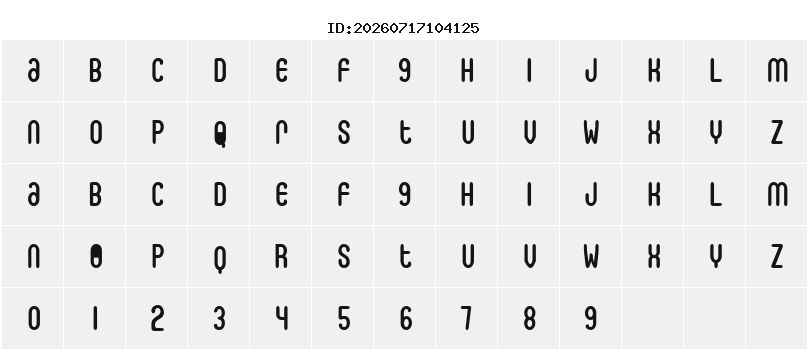
Book Of Joe Preview
• Font Name: Book Of Joe
• Full Font Name: Book Of Joe
About Book Of Joe.ttf
Book Of Joe.ttf is a modern, elegant sans-serif font designed for ultimate readability and visual harmony. Perfect for branding, headlines, web design, and print materials.